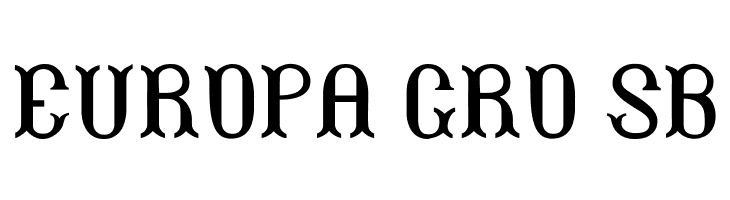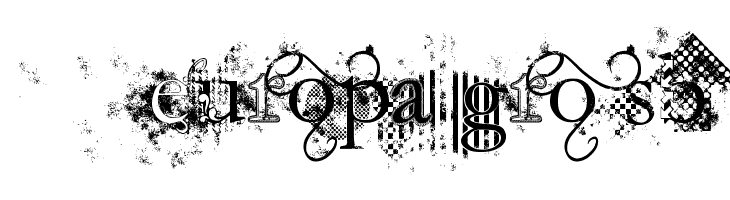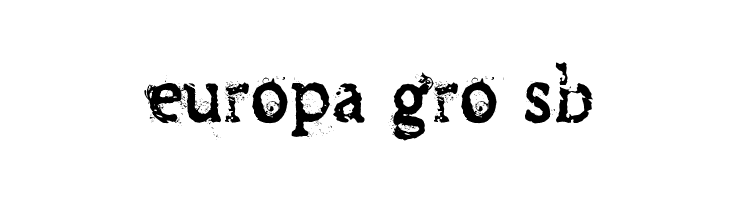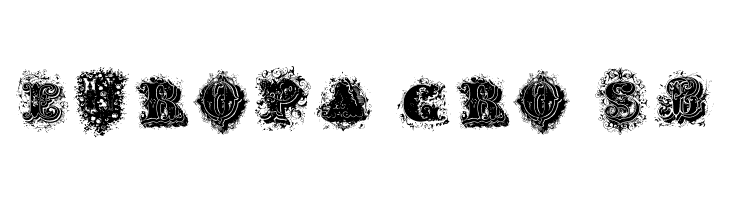
( Fonts by Steve Ferrera )
A bold, decorative font with intricate Western-inspired details.
A decorative and distressed font with intricate patterns and textures.
( Fonts by Mr Fisk - Mike Larsson - fontorama.net )
A decorative font with intricate cut-out patterns and a bold, artistic style.
( Fonts by Rob Dobi - Toxic Type - www.dobi.nu )
A bold, grungy, and decorative font with intricate details and distressed textures.
( Fonts by Pi Luo Chiu - thisisallenchiu.tumblr.com )
A decorative and distressed font with intricate swirls and a grunge aesthetic.